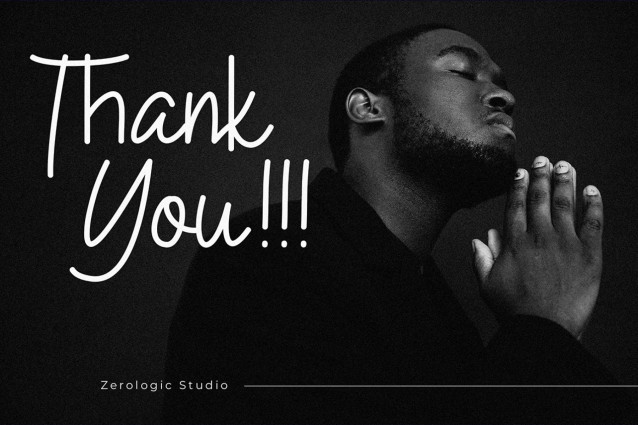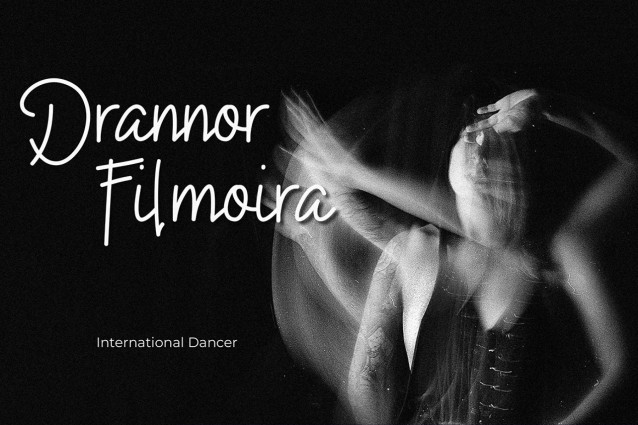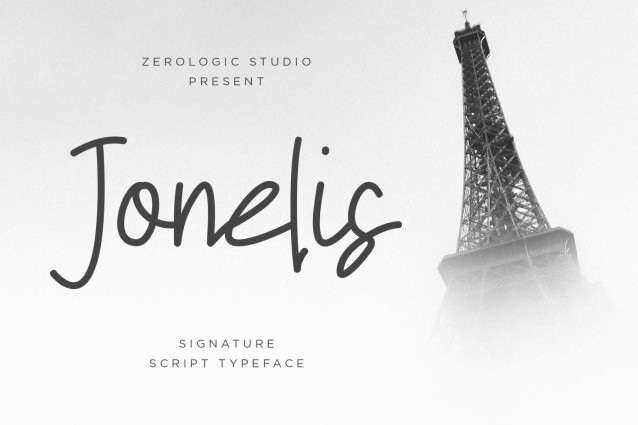
Jonelis Handwritten Typeface Font
Jonelis is a stylish signature script font featuring elegant handwritten strokes and a natural flow. With its sophisticated curves and personal handwritten character, Jonelis is perfect for luxury branding, wedding invitations, logos, signatures, and modern feminine designs. Includes uppercase, lowercase, numbers, and punctuation.